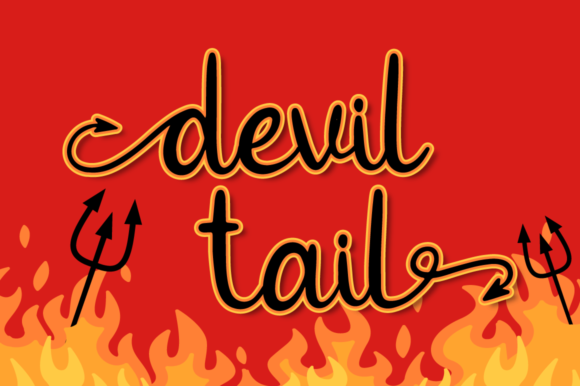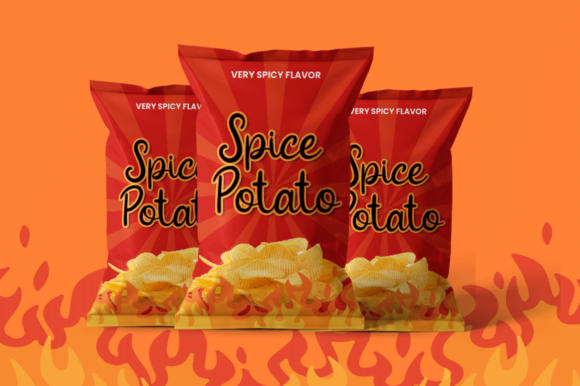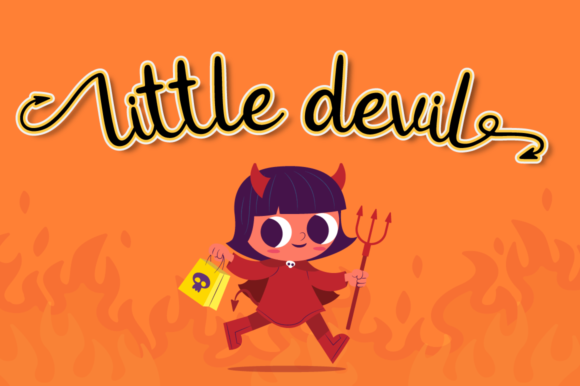
Devil Tail Font
Devil Tail is a delicate and incredibly distinct handwritten font. Fall in love with its incredibly versatile style and use it to create spectacular designs!